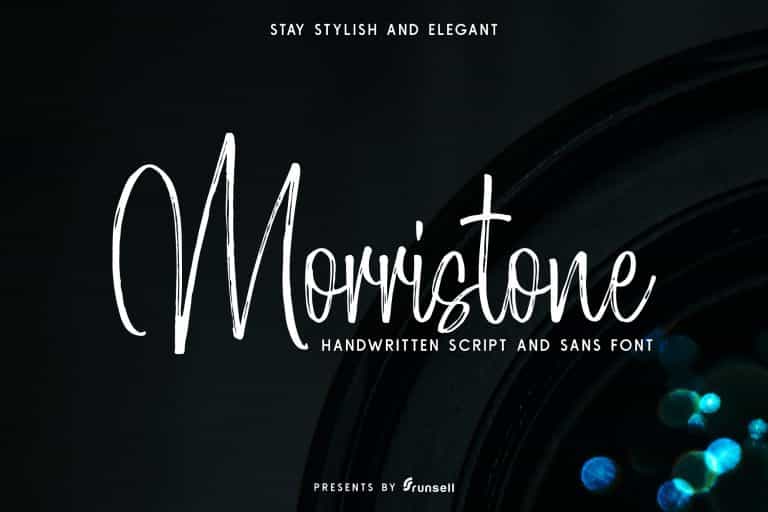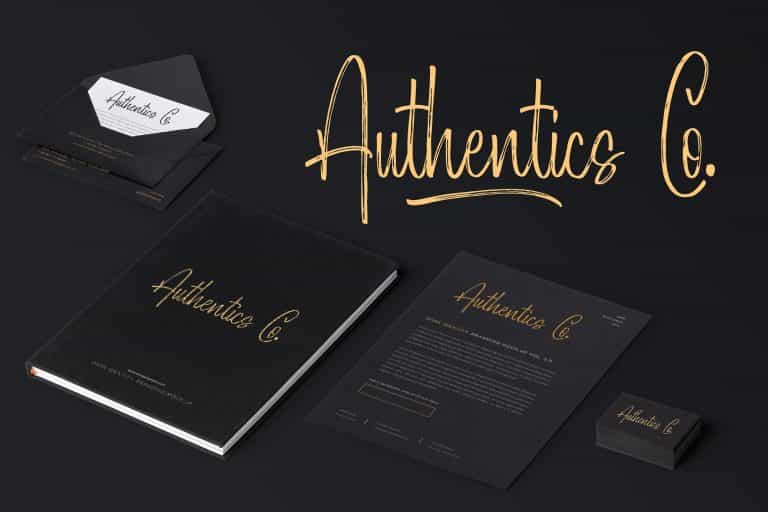
Introducing Morristone Font! Morristone was designed and shared by Runsell Studio. Morristone is a standard font that has the same look as this signature style with its natural flow and texture inside. This font can be a real deal for your design, it will look like an authentic and handcrafted one. Morristone which is fitting for this use in you because it can be used as the signature, logotype, invitation cards, quotes art, website header design , packaging and branding.